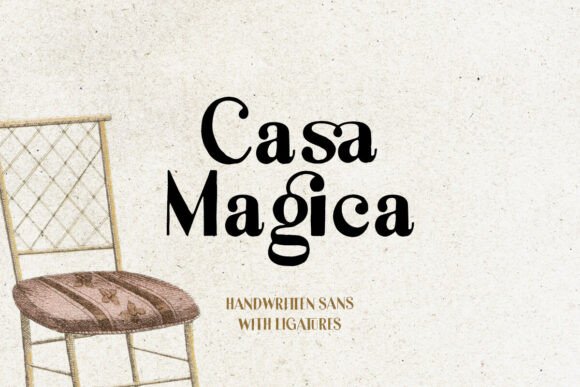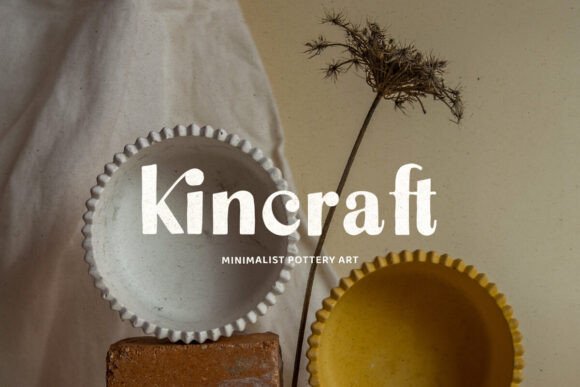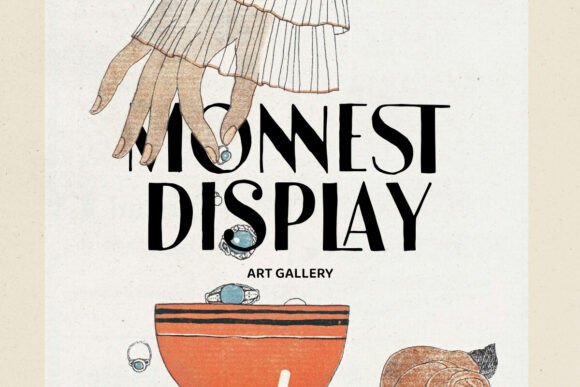
Casa Magica Font
About the Casa Magica Font
Get ready to be inspired by Casa Magica Font, a fresh and dynamic typeface for modern creators. Looking for a font that feels both cozy and stylish? Look no further than Casa Magica. This handwritten sans serif font has a skinny form that gives it a light and airy feel, offer versatility and creative potential. Whether you’re designing for a playful brand or a casual event, this font will add a touch of warmth and charm to your work.